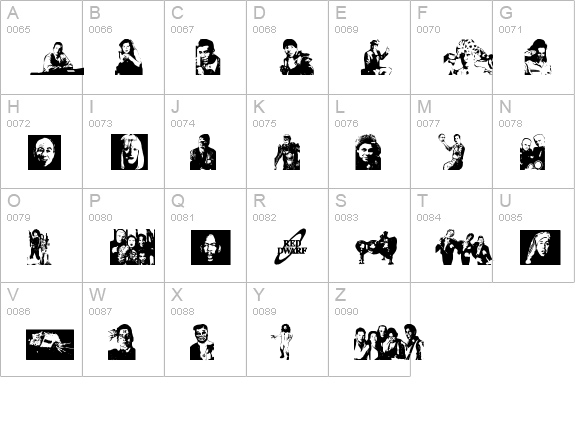
RED DWARF CHARACTERS Font Details
Introducing the captivating and energetic RED DWARF CHARACTERS font, a typeface that brings to life the iconic characters from the beloved sci-fi comedy series. This extraordinary font is the perfect companion for any fan looking to add a touch of Red Dwarf's quirky charm to their designs. RED DWARF CHARACTERS font is meticulously crafted, capturing the essence of each character in its unique letterforms. From the eccentricity of Arnold Rimmer to the wit of Dave Lister, every detail has been carefully designed to reflect the personality and humor that made these characters so beloved. With its playful and dynamic nature, RED DWARF CHARACTERS font is incredibly versatile. Whether you're creating posters, merchandise, or simply adding a dash of Red Dwarf flair to your personal projects, this font will undoubtedly elevate your designs to new levels of creativity. What makes RED DWARF CHARACTERS font even more exciting is that it is freely available to download at FontsMarket.com. This means that you can easily access and use this fantastic font without any hassle. So don't miss out on the opportunity to bring the Red Dwarf universe to life in your creations. Download RED DWARF CHARACTERS font today and embark on a journey through the eccentric and hilarious world of Red Dwarf. Let your creativity soar as you bring these iconic characters to life in your designs. With this font by your side, the possibilities are endless. So go ahead and unleash your imagination - the Red Dwarf universe awaits!